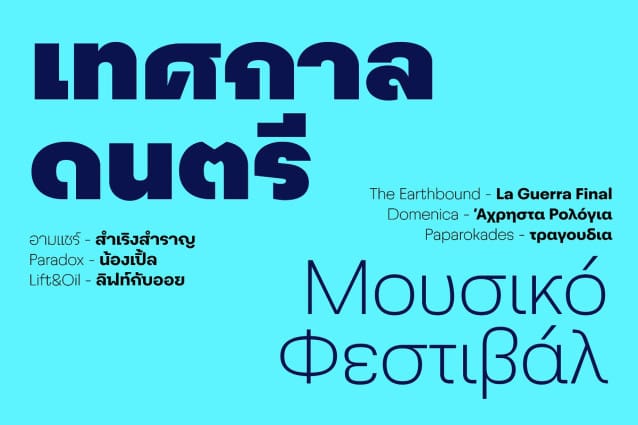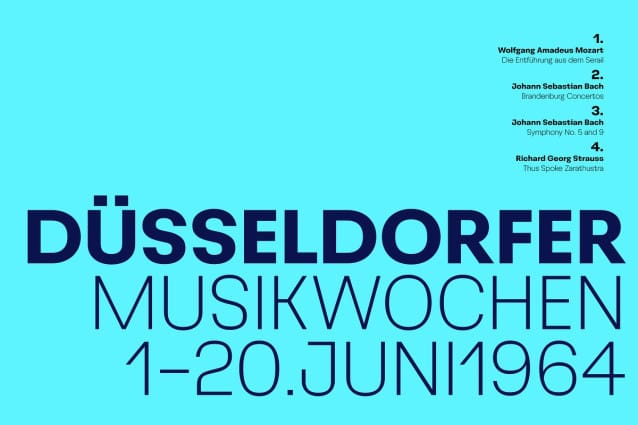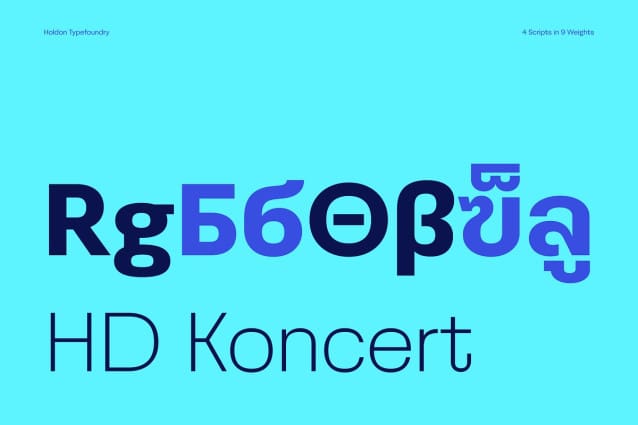
HD Koncert Font Family
HD Koncert Font Family taking inspiration from lettering styles of 1960s music posters, characterized by its blocky shapes and wide proportions with geometric, sharp-edged letterforms create a sturdy, impactful aesthetic, while the wide proportion adds openness and enhances legibility, making it ideal for large-scale applications like headlines or posters. With balanced details such as open counters and consistent stroke widths. The design reflects the creative experimentation of mid-century typography, embracing attention-grabbing forms that evoke confidence and clarity. with the support of 4 scripts including Latin, Greek, Cyrillic, and Thai.